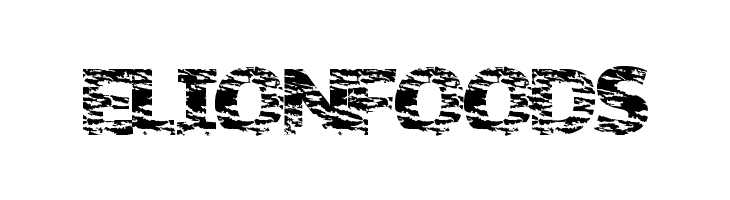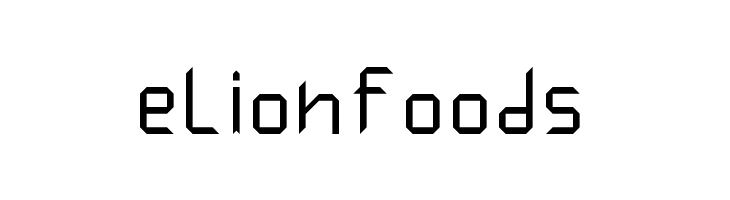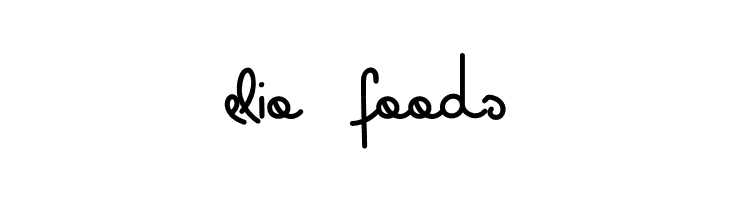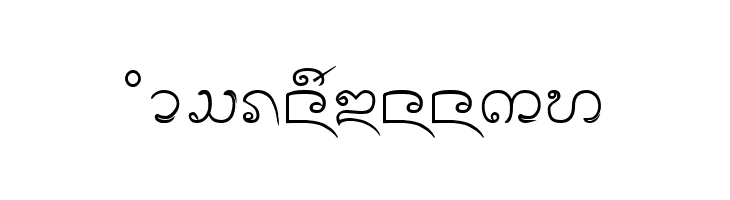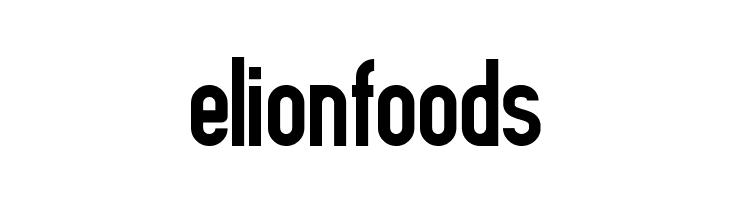
A playful, bubble-like font with a retro vibe and consistent boldness.
A bold, distressed font with an organic, rugged texture.
A futuristic, geometric font with angular edges and consistent thickness.
A playful, handwritten script with smooth, flowing lines and consistent stroke thickness.
An ornate and decorative font with flowing, cursive elements and varied stroke thickness.
A bold, modern, and condensed font with consistent stroke thickness.
A casual, handwritten font with varied stroke thickness and a playful appearance.